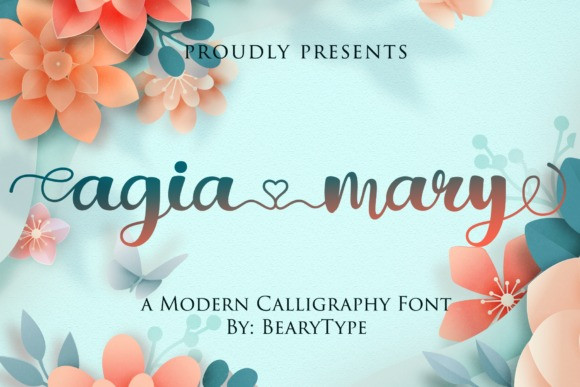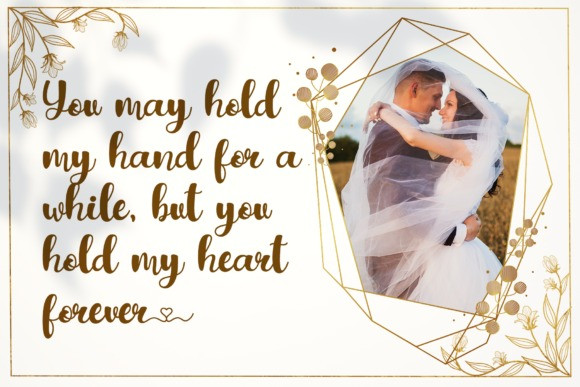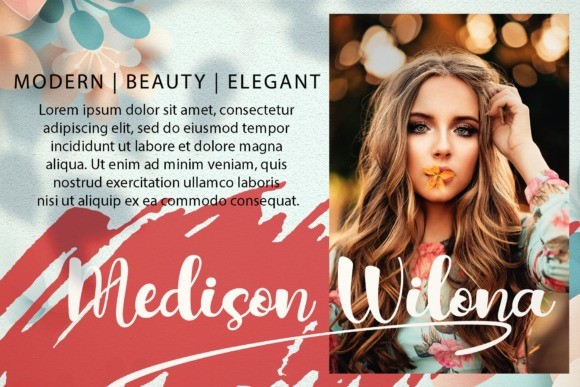
Agia Mary Calligraphy Font
Agia Mary is an amazing handwritten font, which looks attractive and natural on a wide variety of designs. This font is suitable for wedding invitation, branding, advertising, posters and titles.